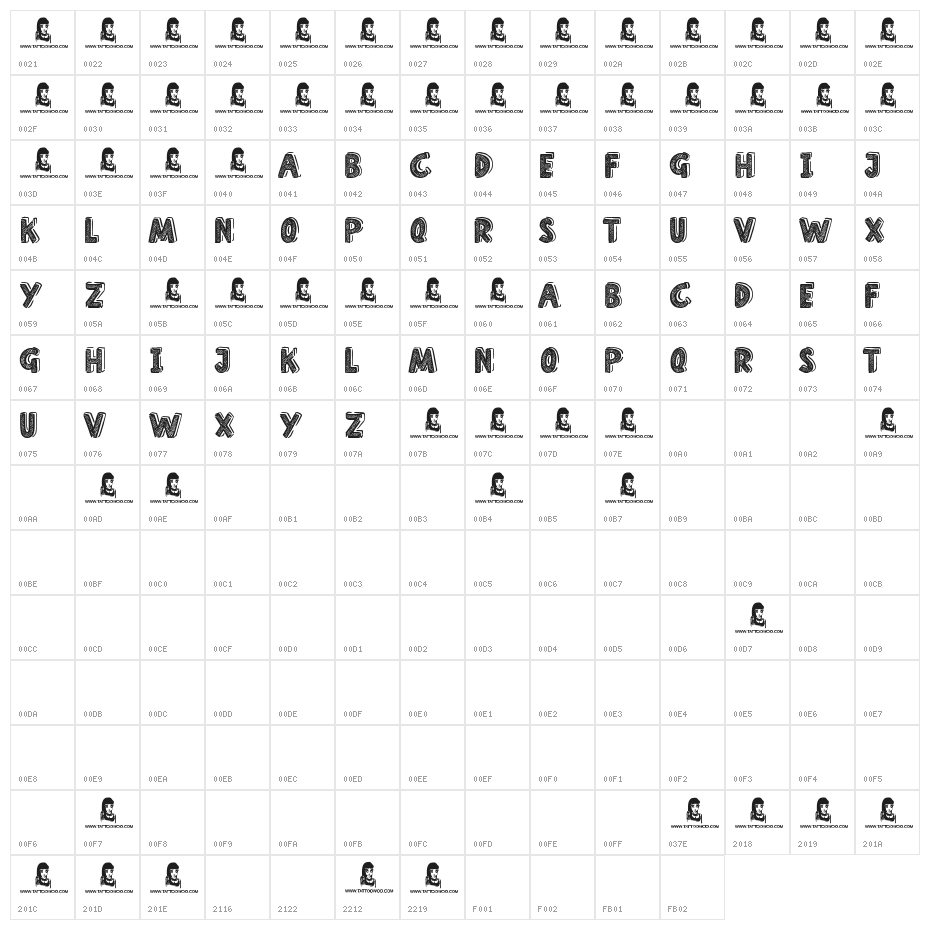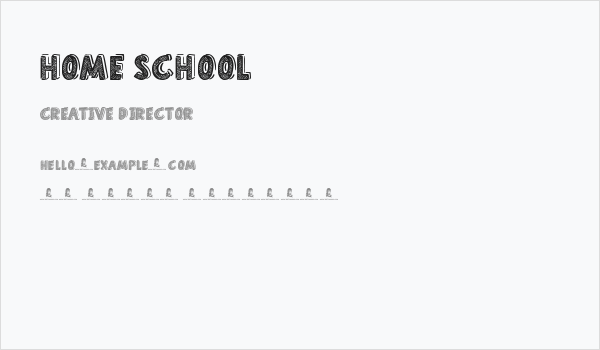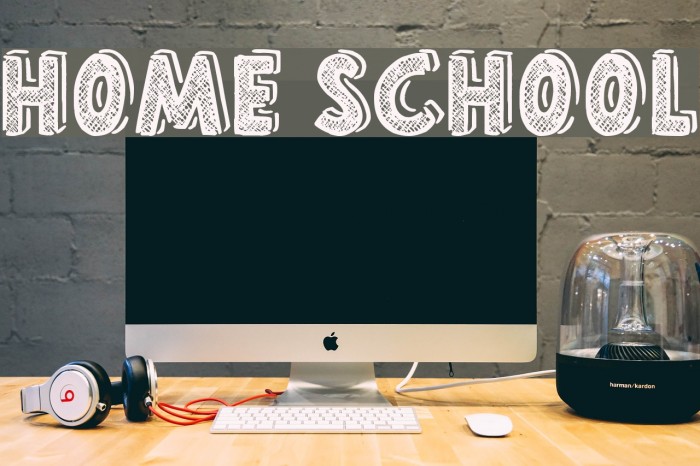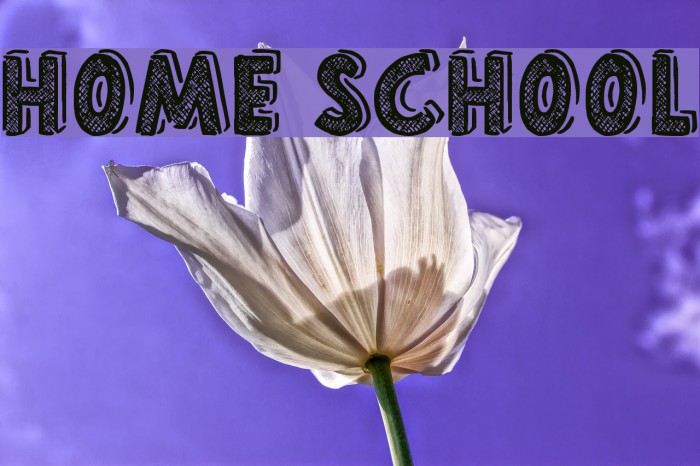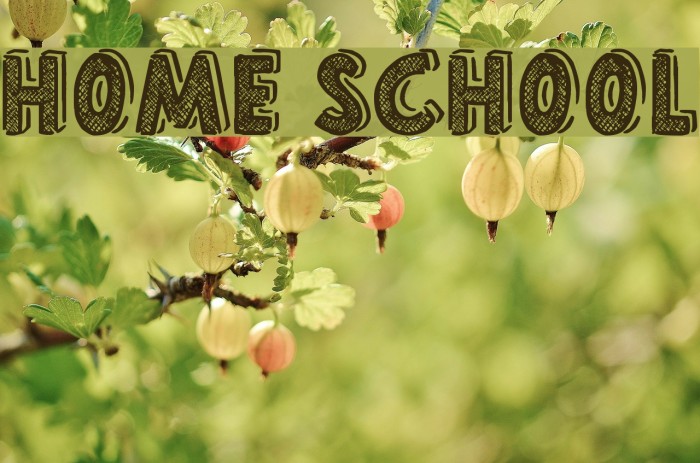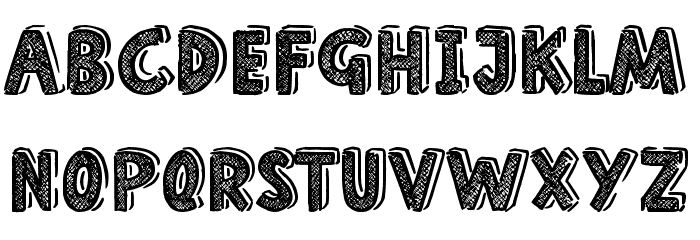
Home School Font
Home School Description
This font features a bold, playful design with a textured, hand-drawn appearance. The letters are uppercase and have a three-dimensional effect, giving them a shadowed look. The texture within each character resembles a scribbled or doodled pattern, adding a whimsical and informal touch. The font's style is reminiscent of chalkboard writing or comic book lettering, making it suitable for creative and fun projects. Its boldness ensures high visibility, while the unique texture provides a distinctive character that stands out in any design.
| Overall Style | Playful, Whimsical |
| Use Case | Headlines, Posters, Creative Projects |
| Proposed Projects | Ideal for children's book covers, playful posters, comic strips, and educational materials. |